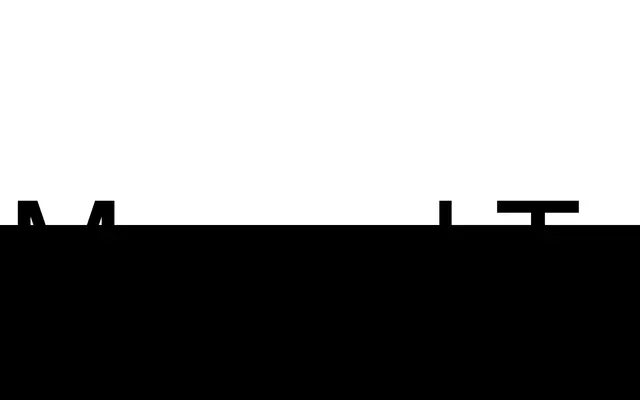
Manual Tatry
A digitisation of the yellow hand-painted guideposts found in High Tatras National Park, Slovakia, rendered as a narrow geometric sans with soft terminals.
Ondrej Jób drew this single-weight geometric sans directly from the utilitarian hand-painted waymarkers of High Tatras National Park. Although the original signage was almost entirely uppercase, the digital version adds a full lowercase alongside special glyphs, symbols and 390 total glyphs covering over 100 languages. Stylistic set 1, discretionary ligatures and case-sensitive forms expand its usefulness for display and headline settings.
Described explicitly as a utilitarian geometric sans-serif with no contrast, narrow width, soft terminals and large x-height, digitised from hand-painted signage.